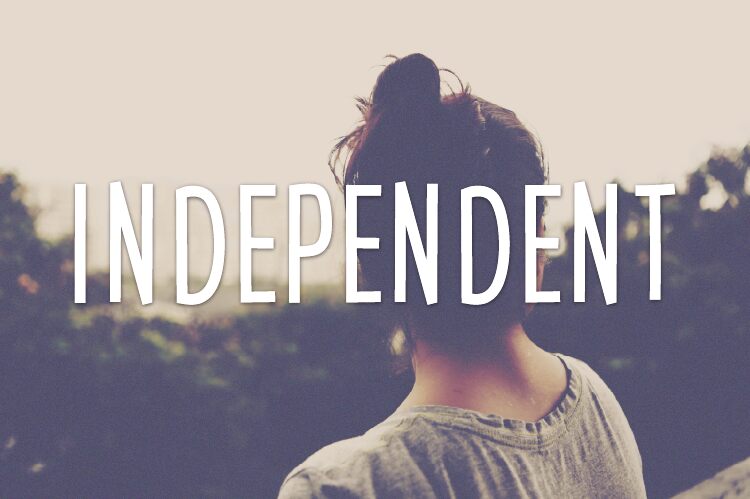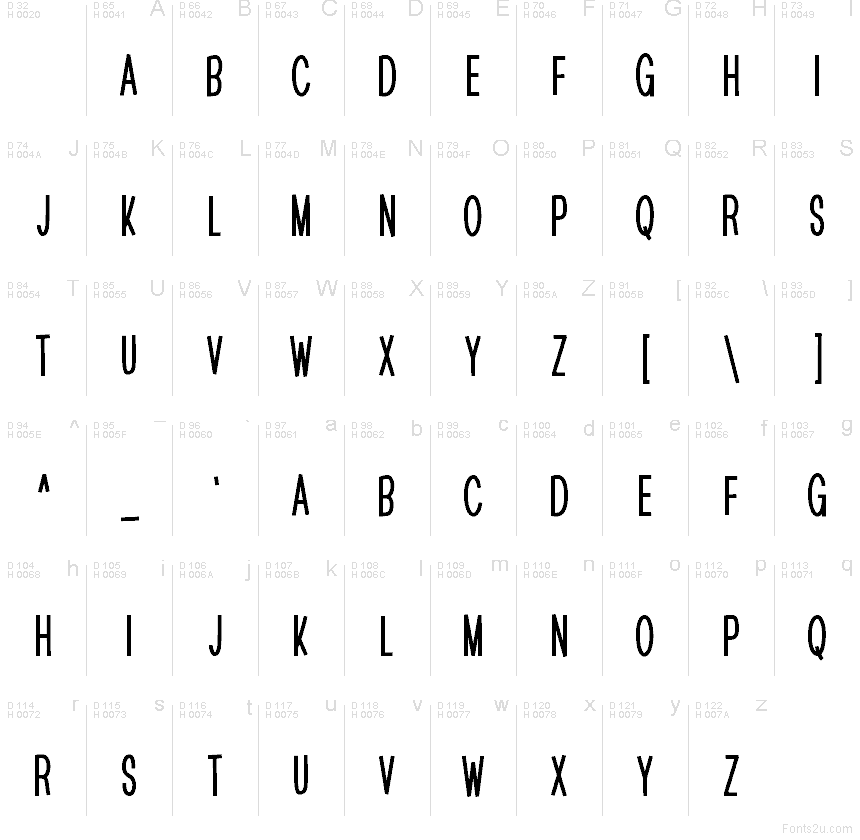
Independent
Independent font by HannaBie Creative Studio is a free comic display typeface with a tall, squeezed silhouette and a slightly off-kilter stance that feels hand-cut and rebellious. Its narrow letters stack tightly together, with inky, uneven strokes that wobble just enough to feel human but still read clearly from a distance. The result is a wiry, energetic texture that looks like it’s been scrawled on a gig poster or zine cover with a fat marker and a lot of attitude.
Using Independent, headlines instantly gain a scratchy, underground edge that’s great for posters, comic titles, album art, stickers, streetwear graphics, and bold social banners. This free font shines when you let it shout—set it large, give it room to breathe vertically, and pair it with a clean, understated sans serif for body text to keep the rough energy focused where it belongs.